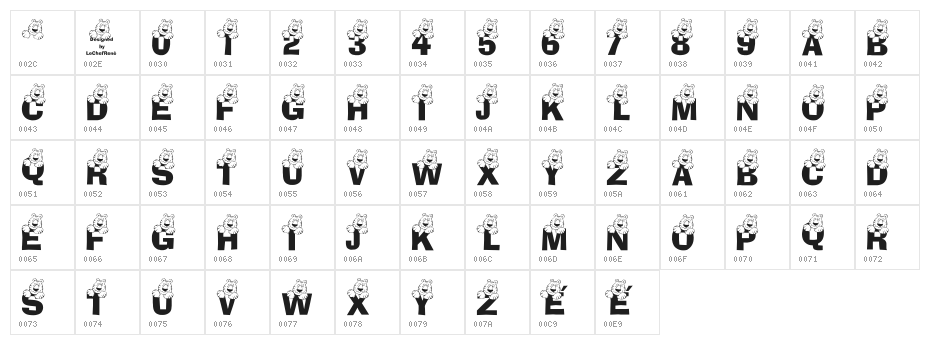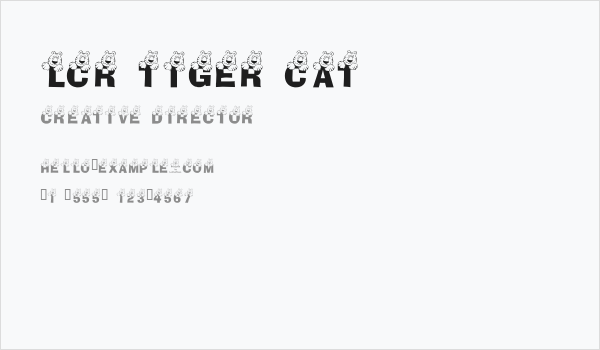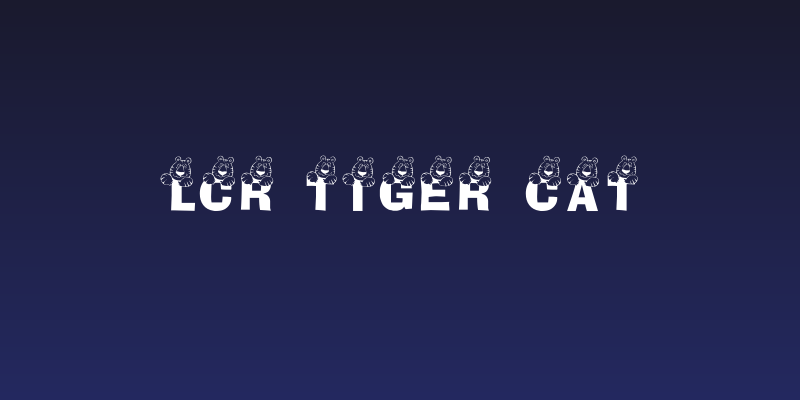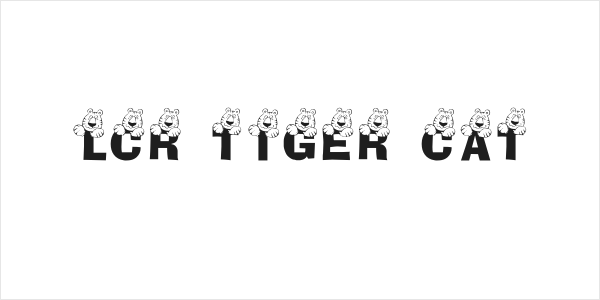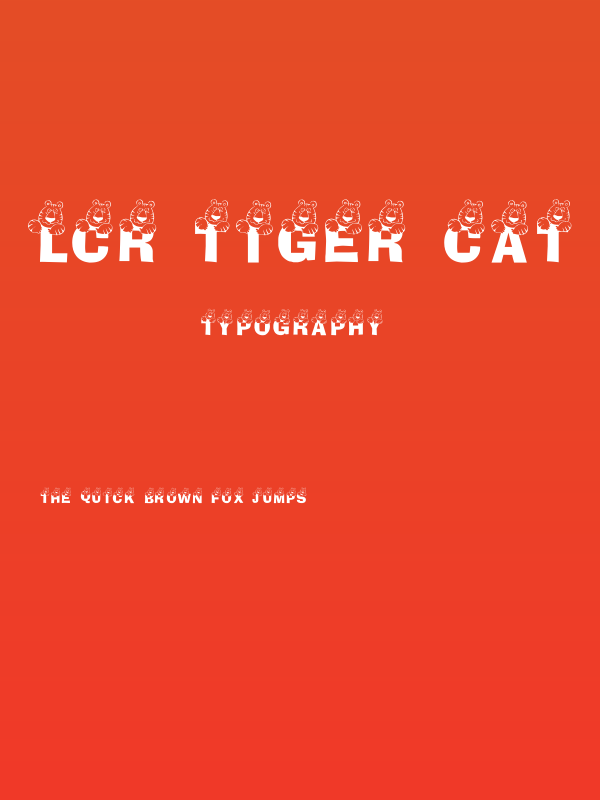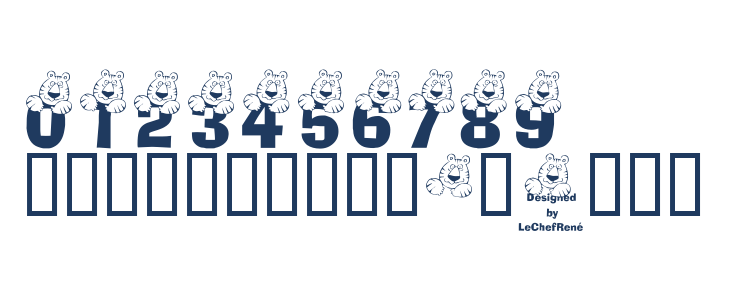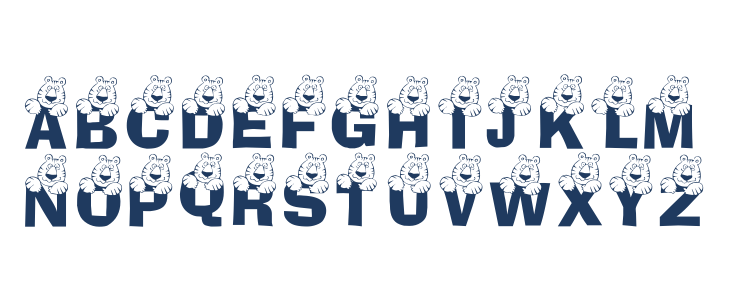
LCR Tiger Cat Font
LCR Tiger Cat Description
This playful and bold font features a unique design where each character is accompanied by a cartoon tiger illustration. The uppercase and lowercase letters, as well as numbers, are all styled with a strong, blocky appearance, making them stand out. The tiger adds a whimsical and fun element, making this font ideal for children's projects or playful branding. The characters are evenly spaced, ensuring readability despite the decorative elements. The font's bold weight and high contrast between the strokes and the tiger illustrations create a striking visual impact.
| Proposed Projects | Ideal for children's books, playful branding, educational materials, and fun posters. |